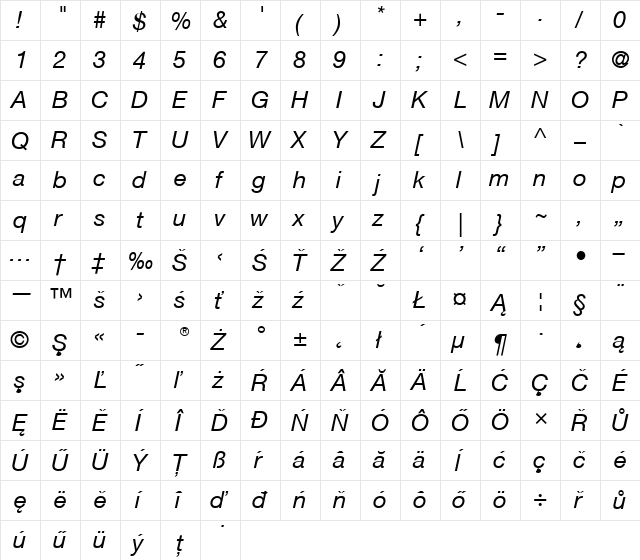
Helvetica CE 55 Roman Italic Font Preview
Helvetica CE 55 Roman Italic
Helvetica CE 55 Roman Italic Font Details
Design Context for Helvetica CE 55 Roman Typeface
Helvetica CE 55 Roman takes a measured approach to typography — its balanced proportions and neutral character make it a reliable workhorse for both digital and print work. The dynamic lean of this cut emphasises speed and emphasis in any layout.
Pro Tip: Try Helvetica CE 55 Roman for annotation and caption copy alongside an upright companion — the contrast in angle creates a dynamic but ordered typographic system.